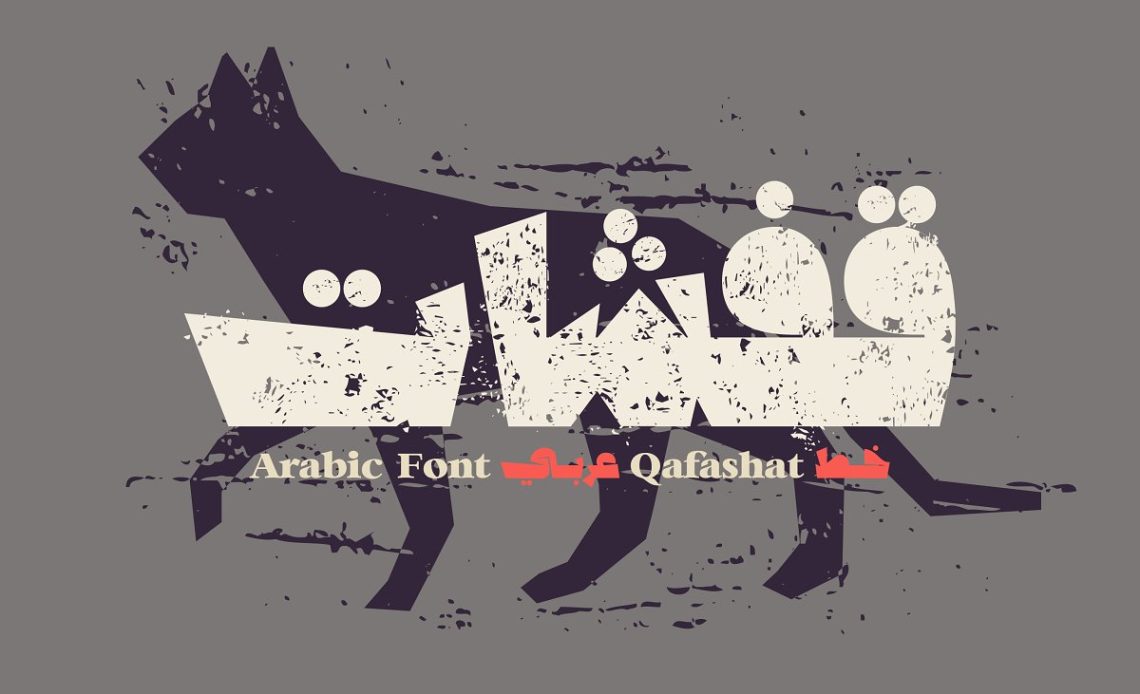
Introducing Qafashat - Arabic Font, the ultimate collection of fonts that will revolutionize your design projects! Created by the incredibly talented Mostafa Abasiry, this font is specifically crafted for those seeking the best fonts for small display.
Qafashat, meaning 'quips' in Arabic, is a font that effortlessly combines wit, heaviness, and grunge in its unique letterform style. With its striking design, this font is sure to capture the attention of anyone who lays eyes on it.
What sets Qafashat apart is its ability to simulate the captivating effect of woodcut printmaking. Each letter exudes a sense of authenticity and charm, making it perfect for modern design projects across various mediums, be it print, web, or mobile applications.
But what truly makes Qafashat stand out is its versatility and adaptability. Whether you're designing a logo, creating eye-catching headlines, or enhancing your website's typography, this font is your ultimate tool. Its dynamic nature allows it to effortlessly fit into any design aesthetic, adding a touch of personality and uniqueness.
Immerse yourself in the world of Qafashat and experience the power of captivating typography. Let your words come to life as you convey emotions, tell stories, and create a lasting impression on your audience. With Qafashat, you have the ability to evoke a range of emotions, from excitement to nostalgia, ensuring that your message resonates deeply with your target audience.
Indulge in the beauty of Qafashat - Arabic Font and unlock endless creative possibilities. Elevate your design projects with this captivating font that will leave a lasting impact on anyone who encounters it. Don't miss out on the opportunity to enhance your designs with the best fonts for small display.